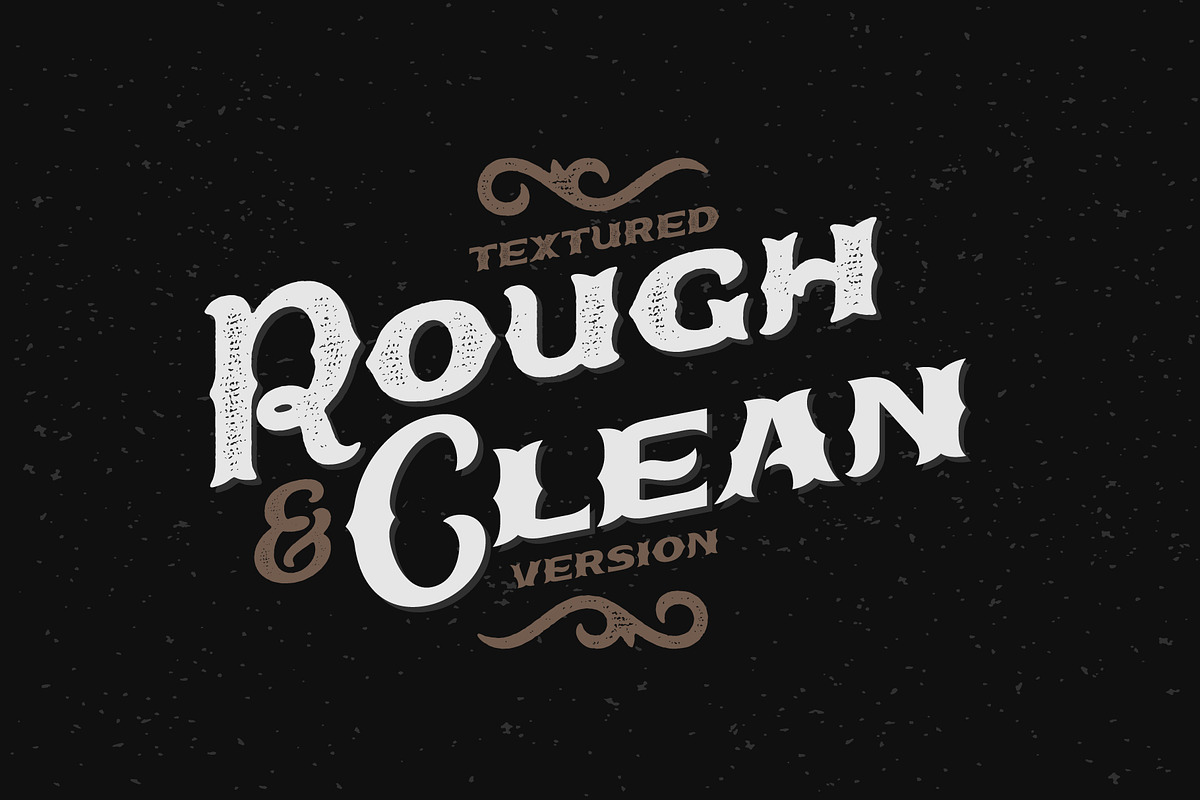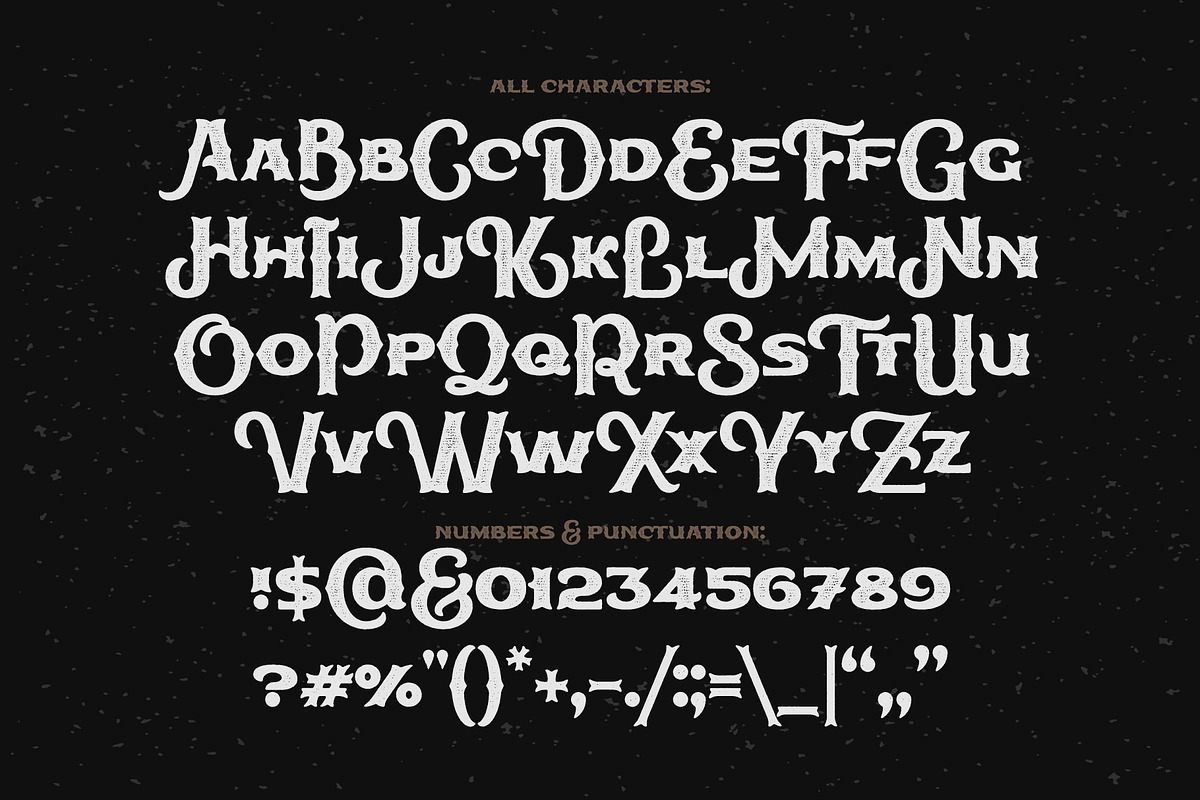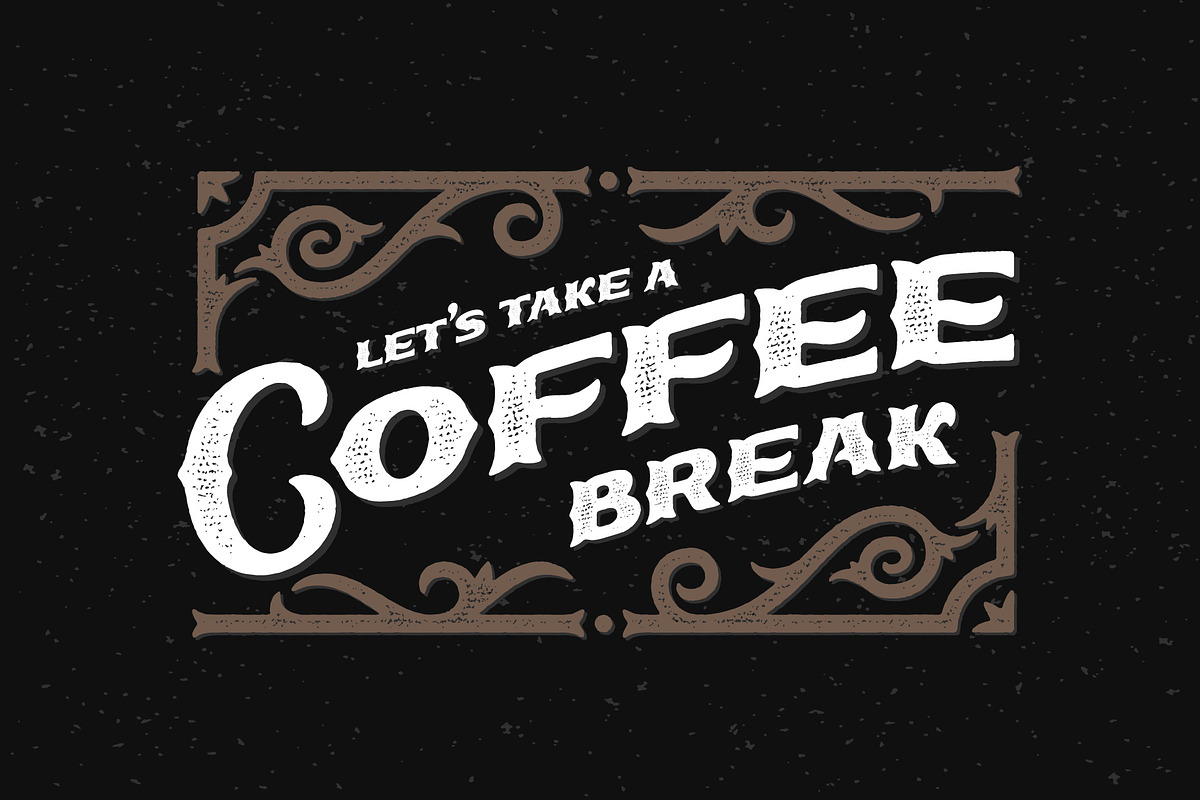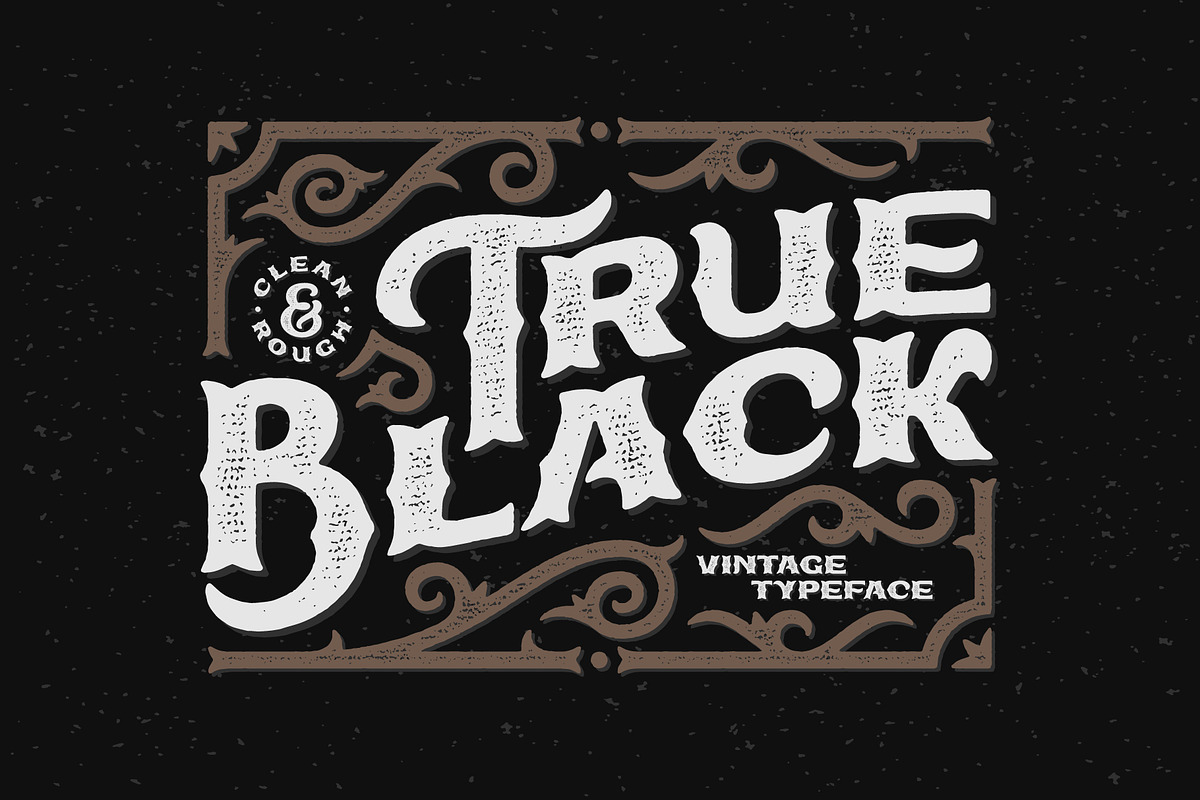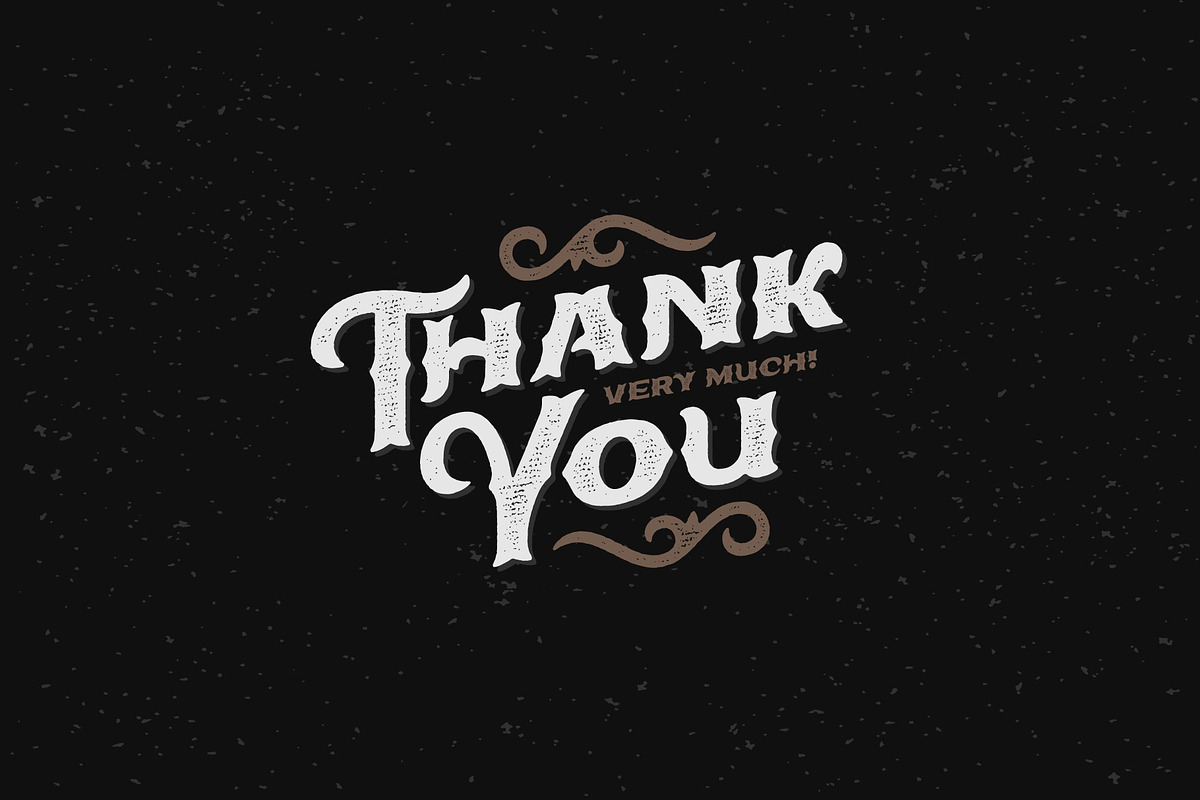
True Black typeface
Hello! Presenting a vintage steam-punk look font named "True Black". It has clean and textured rough versions. Also you will get a vector bonus with decorative ornate. Inside you will find a vector poster with lettering composition "Let's take a coffee break".
True Black typeface by Gleb Guralnyk fits naturally into Branding, posters, packaging, typography.